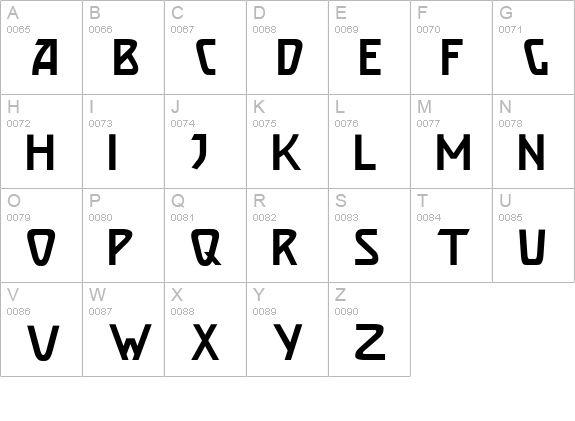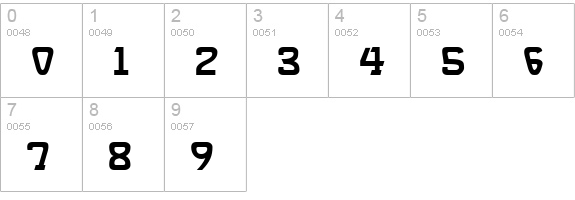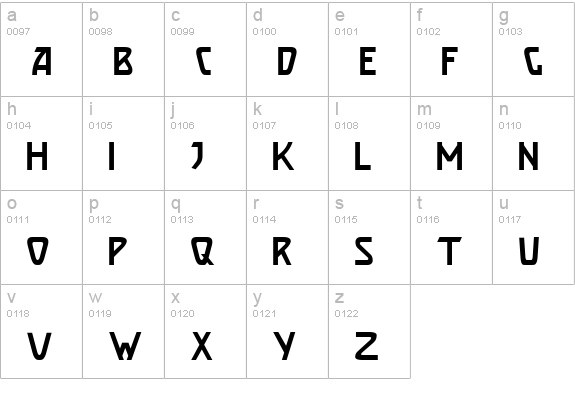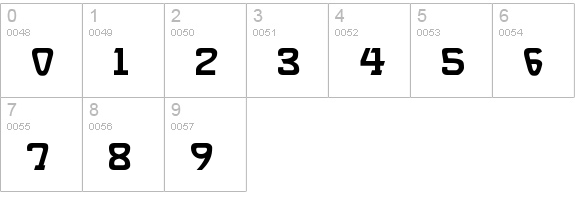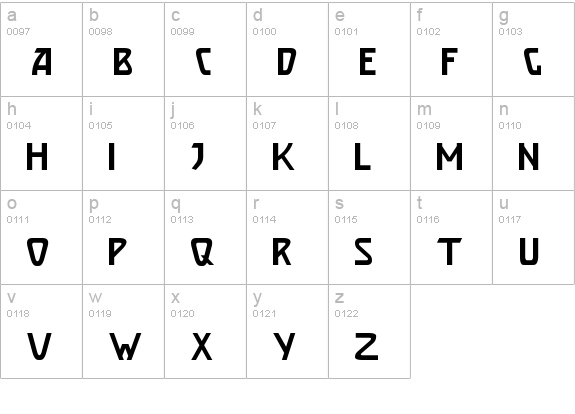
Brassett Font Details
Introducing Brassett font, a stunning typeface that exudes elegance and sophistication. With its sleek lines and classic design, Brassett is the perfect choice for projects that require a touch of refinement. Whether you're designing a wedding invitation, a logo for a luxury brand, or creating a stylish poster, Brassett font is sure to elevate your work to the next level. What's even better is that Brassett font is completely free to download at FontsMarket.com. Yes, you heard that right - this premium quality font is available for you to use in your projects at no cost. Don't miss out on this amazing opportunity to add a touch of class to your designs with Brassett font. Download it today and start creating beautiful typography that will leave a lasting impression.